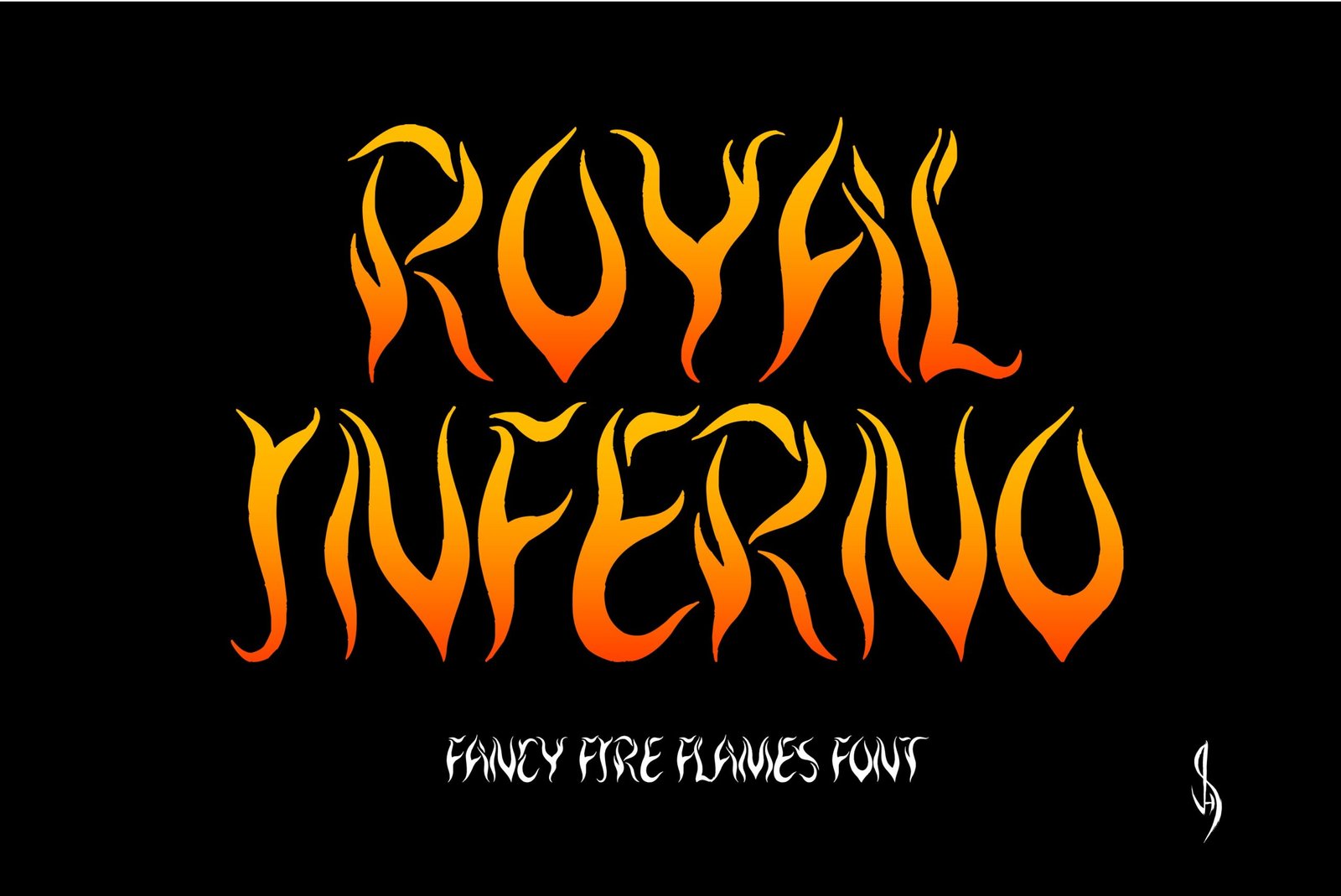
Royal Inferno Font
Cool fancy fire/flames font. “Royal Inferno” Perfect for advertising and display purposes, including banners, book covers, shirts, posters, logos and much more!
This is an ALL CAPS font.